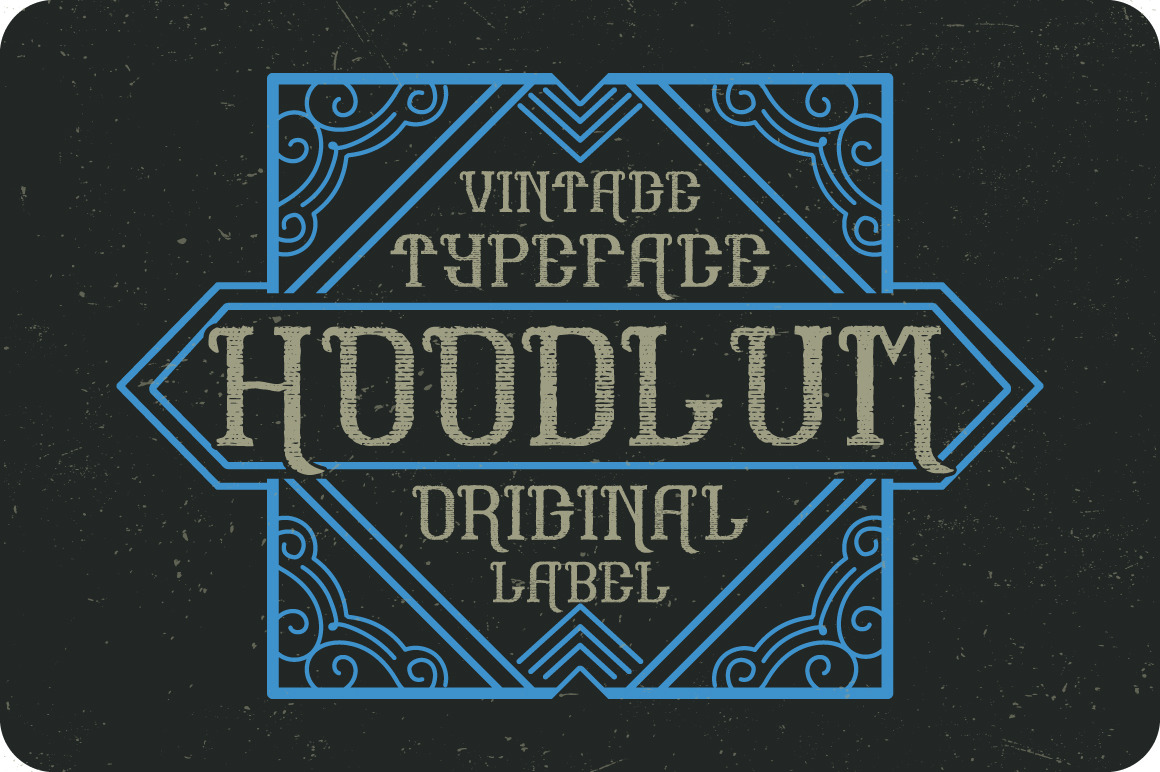
Hoodlum label font
Introducing a vintage label typeface named "Hoodlum". It's made in strong and vintage label style. Typeface looks great on any label designs and t-shirts.
- 5 fonts in complect with special effects + aged version
- You can mix color of base font, light and shadow effect (look at 3rd screenshot)